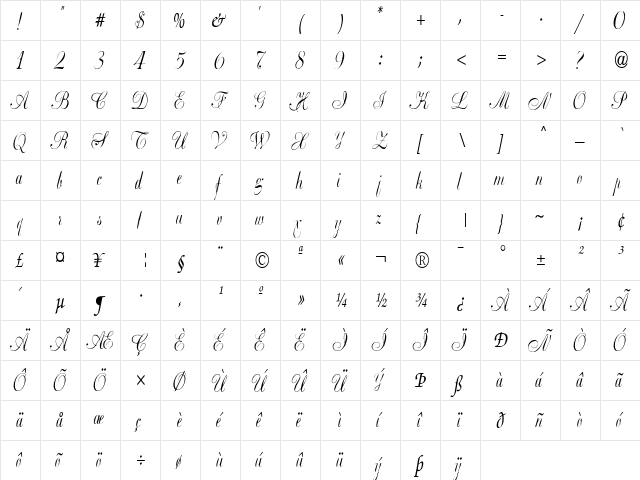
Basic Class A Condensed Regular
Design Context for Basic Class A Condensed Typeface
Basic Class A Condensed is a composed and adaptable typeface that performs quietly and consistently across a wide range of design contexts. Its narrow stance lets it pack a punch even in space-constrained designs.